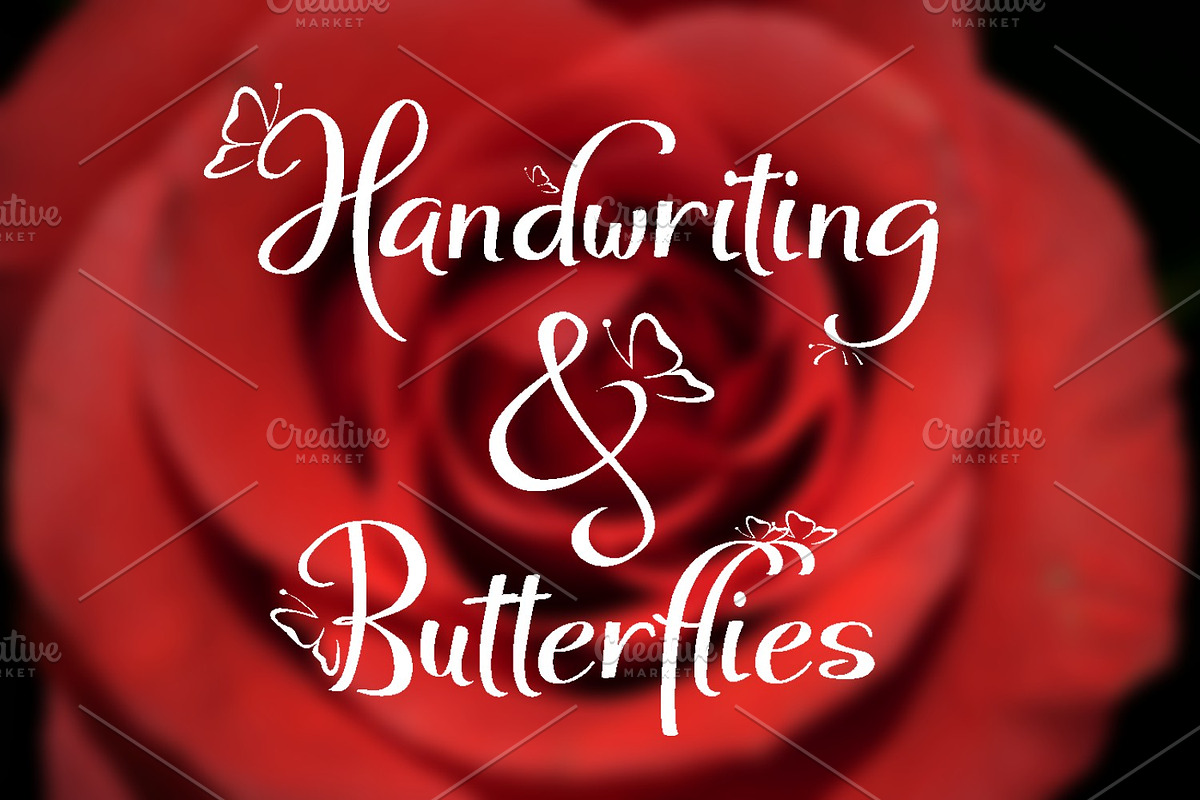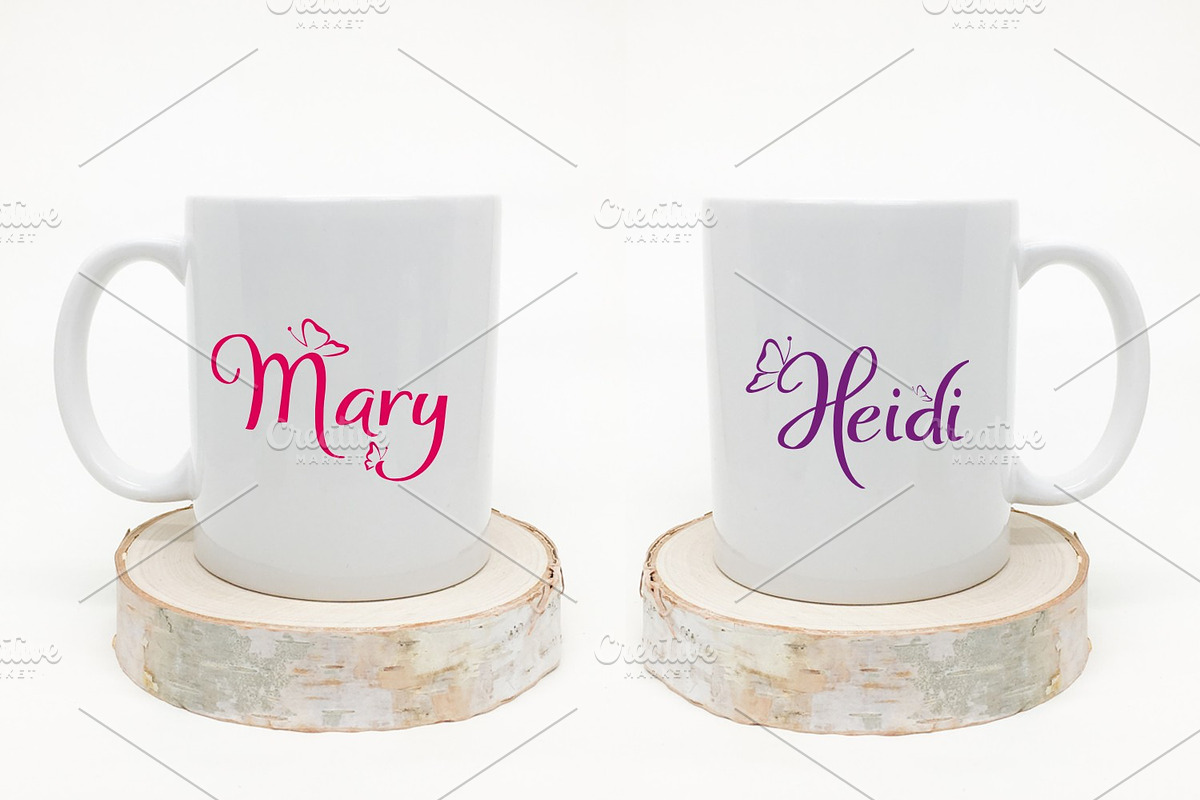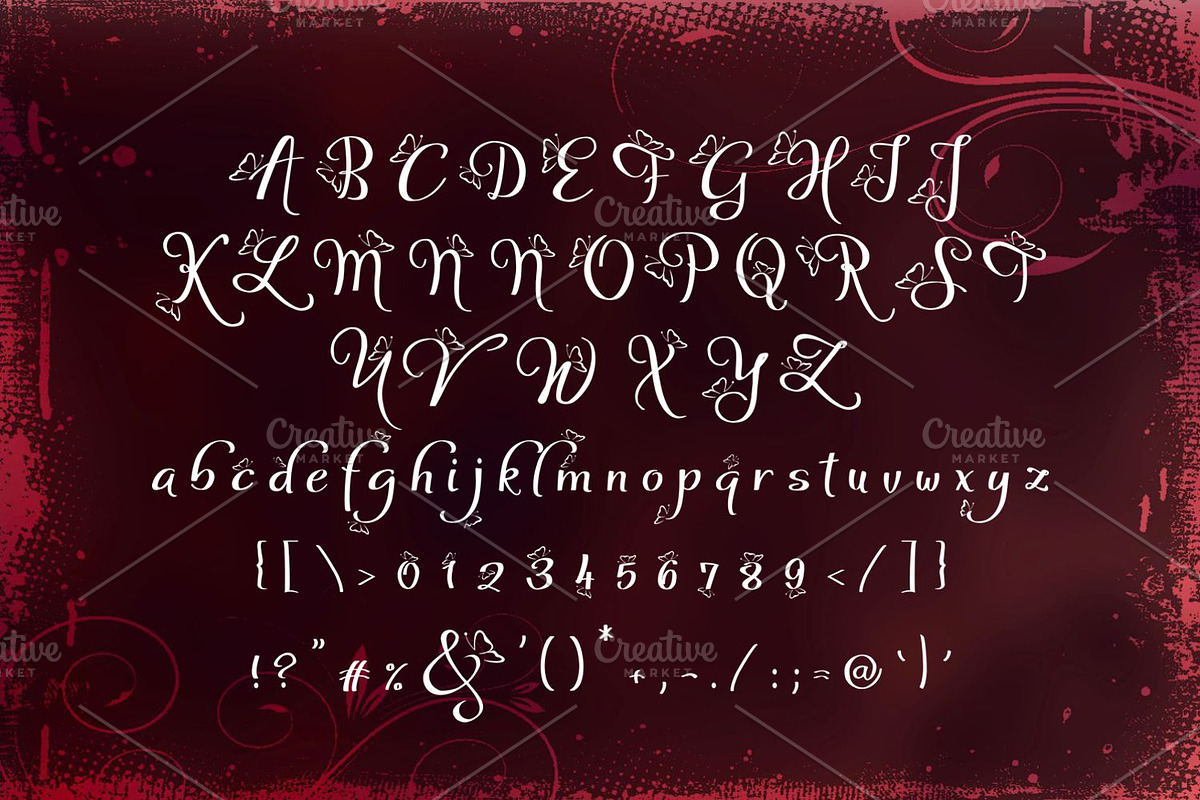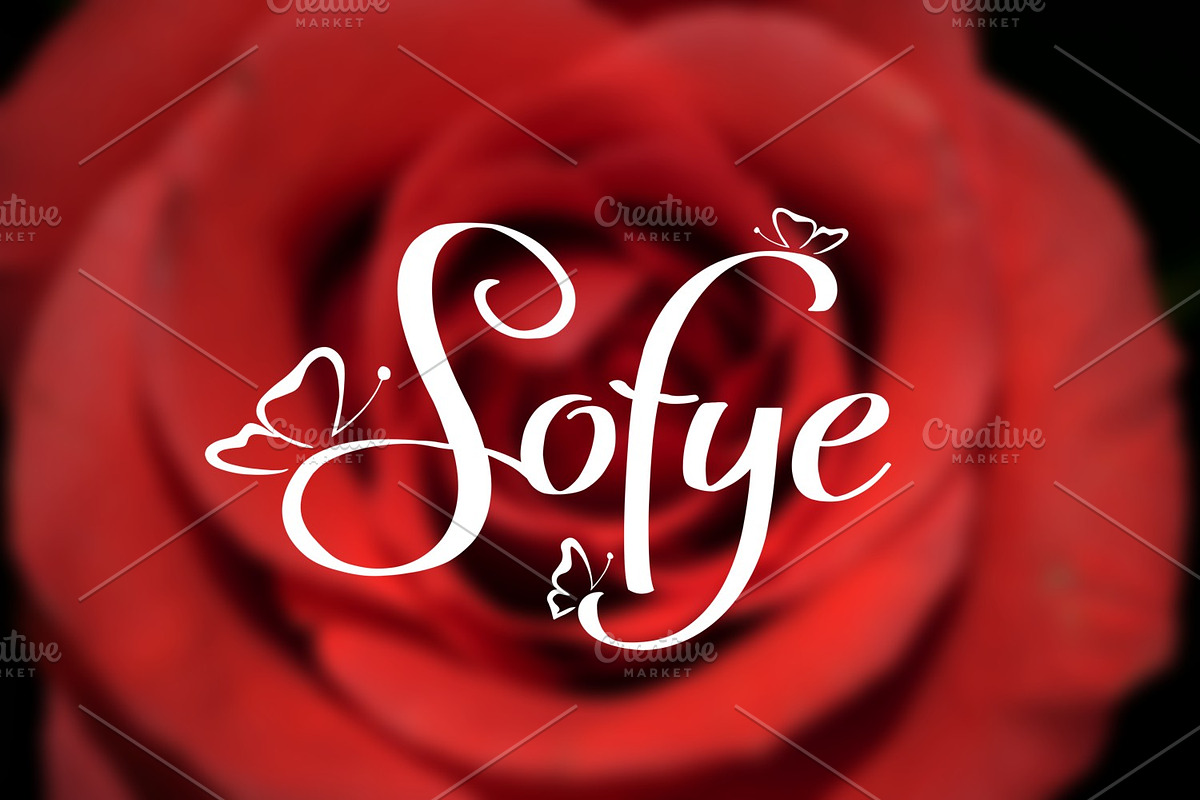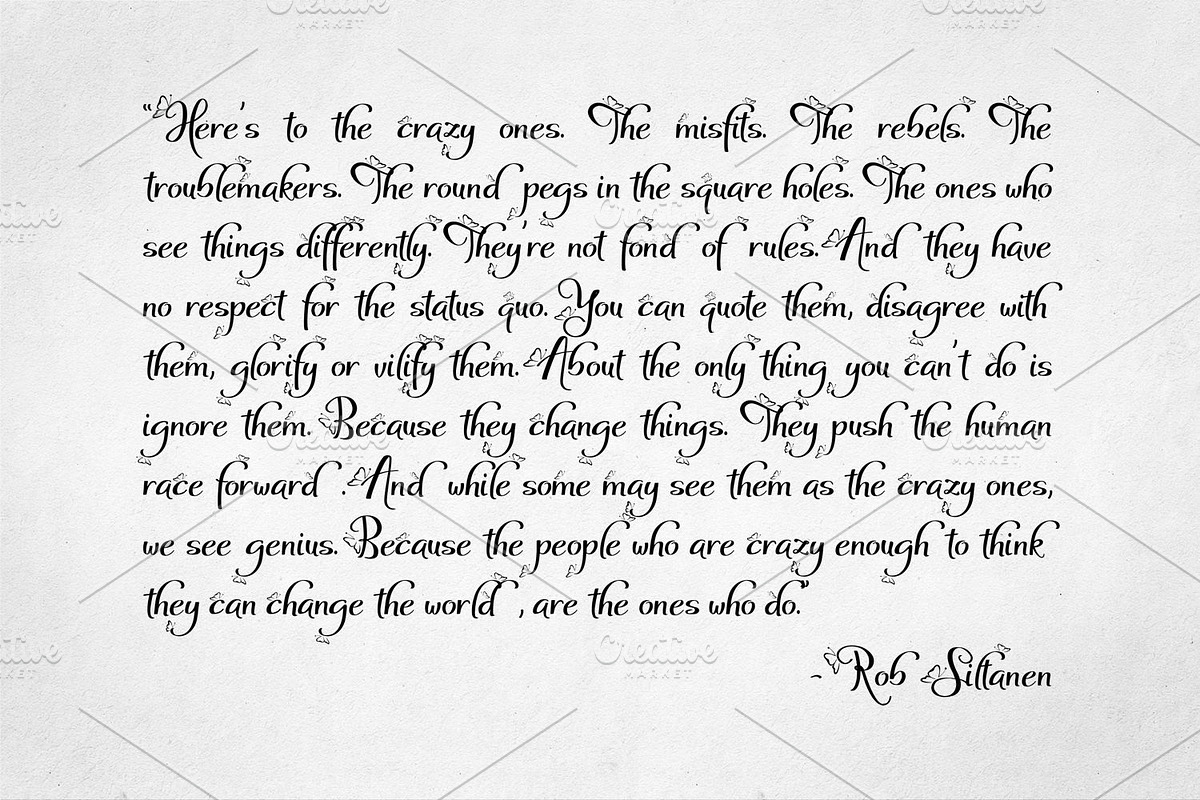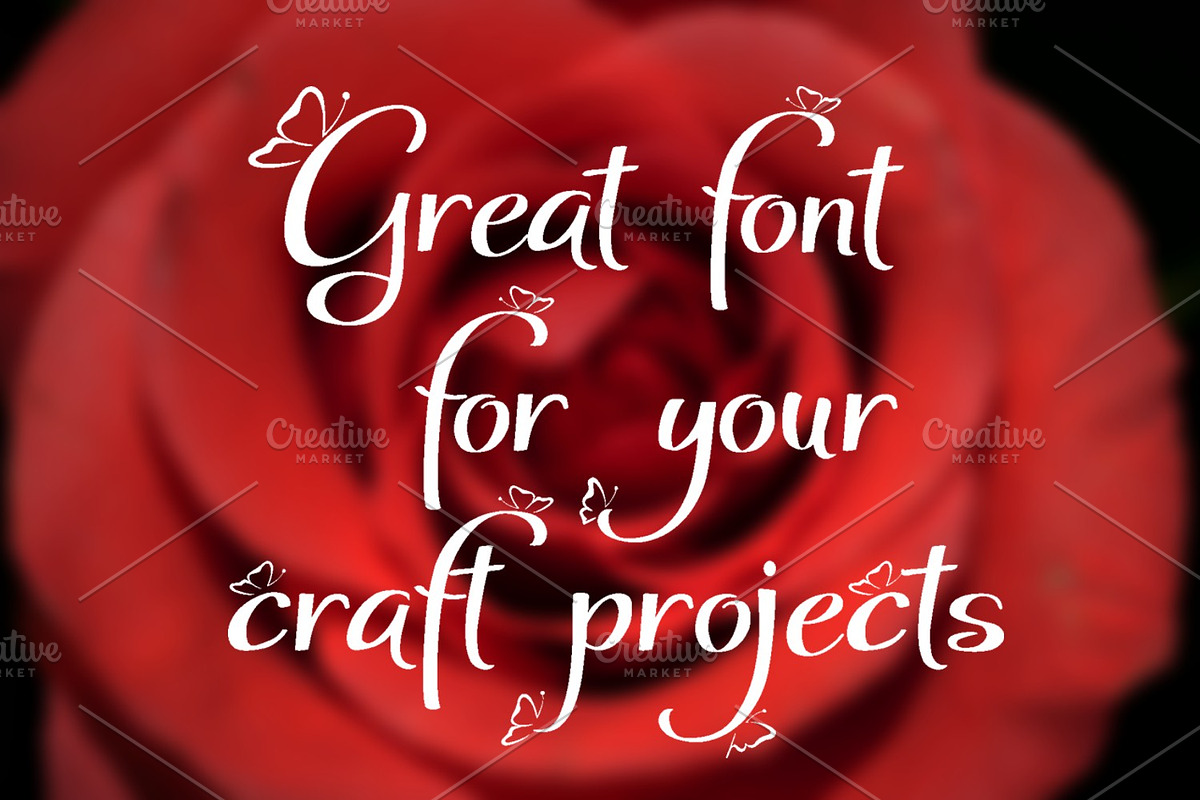
Sofye
Introducing Sofye handwritten typeface. Capital letters, numbers and some other characters are decorated with butterfies.
- Capital letters, numbers and some other characters are decorated with butterfies.
Sofye by Digital Typeface Studio fits naturally into Branding, posters, packaging, typography.